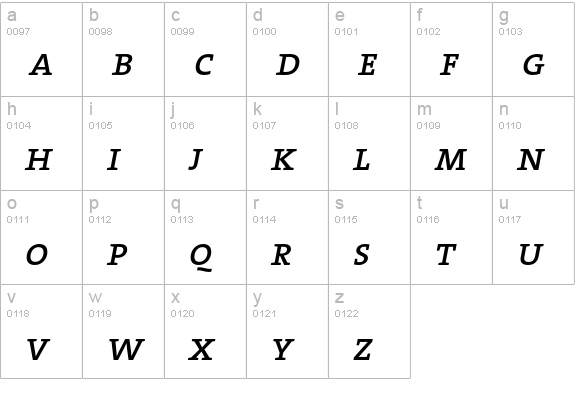
TheSerif Caps Italic Font Details
TheSerif Caps Italic is a distinctive, italic variant in the TheSerif typeface family \xE2\x80\x94 well suited to design and typography projects.
TheSerif Caps Italic font is an exquisite typeface that conveys elegance and sophistication. Its unique combination of classic serifs and a subtle italic slant creates a harmonious balance, making it a perfect choice for projects that require a touch of refinement. This font exudes a sense of timeless beauty, making it suitable for a wide range of applications. Whether it's creating eye-catching headlines, designing high-end branding materials, or crafting luxurious invitations, TheSerif Caps Italic font adds a touch of class that is sure to impress. What's even better is that this remarkable font is available for free at FontsMarket.com. You can easily download it and start using it in your projects right away. With its freely accessible availability, TheSerif Caps Italic font offers an incredible value for designers, allowing them to elevate their creations without any cost constraints. The versatility of TheSerif Caps Italic font is unparalleled. Its clean and legible letterforms ensure readability, even at smaller sizes, while its unique styling adds a touch of personality and flair. It effortlessly captures attention and creates a lasting impact on any design. Embrace the elegance and sophistication of TheSerif Caps Italic font and watch your designs come to life. Download it for free at FontsMarket.com and elevate your creative endeavors with this stunning typeface.